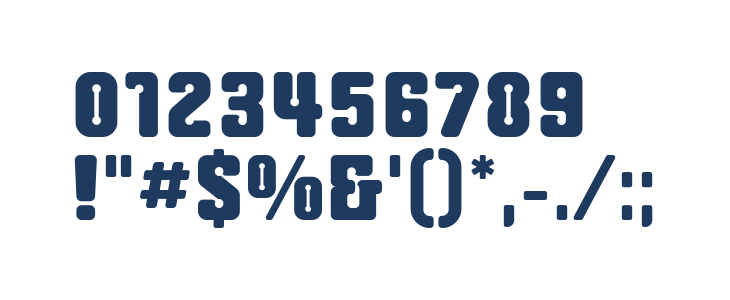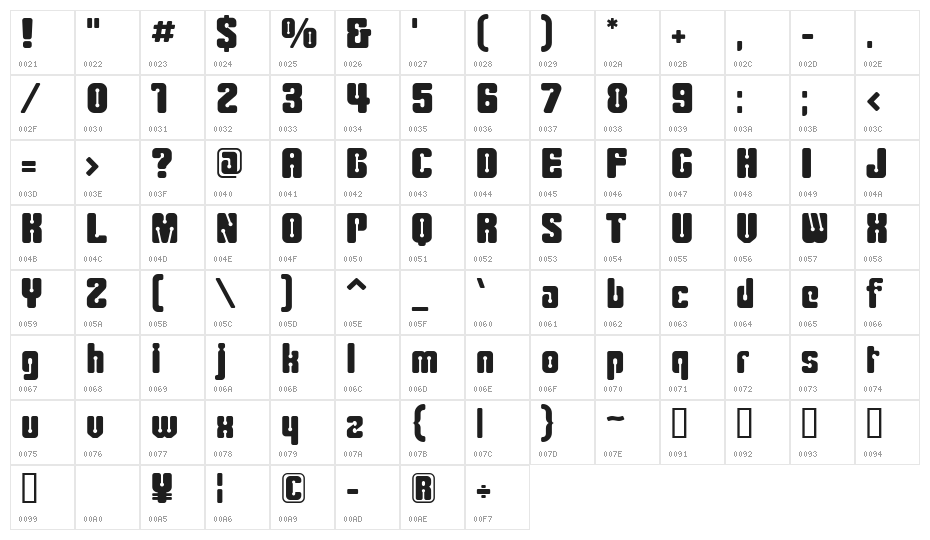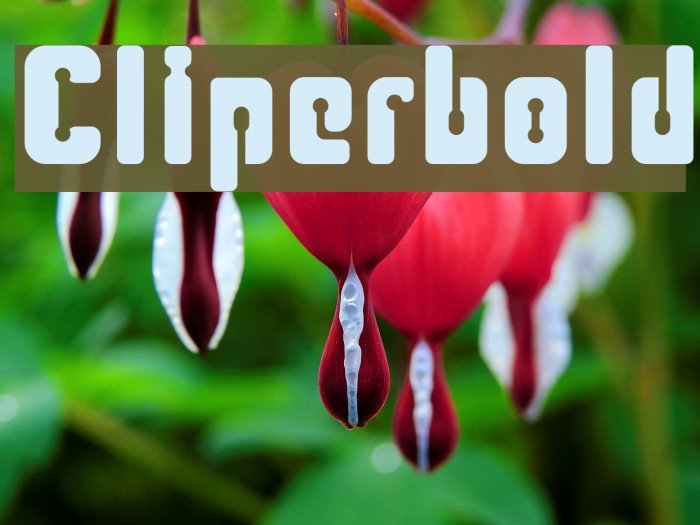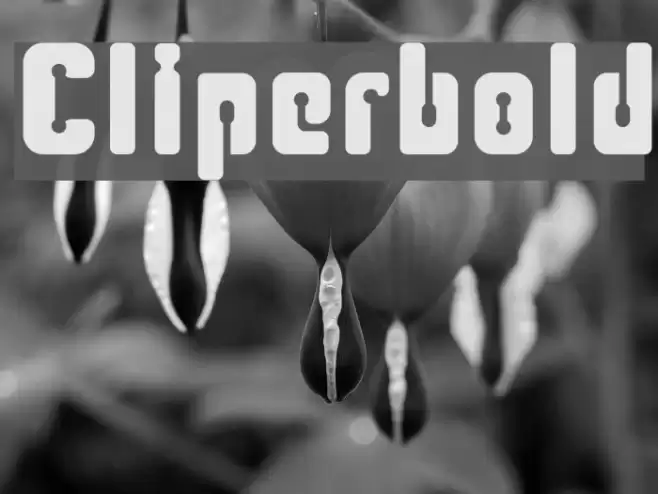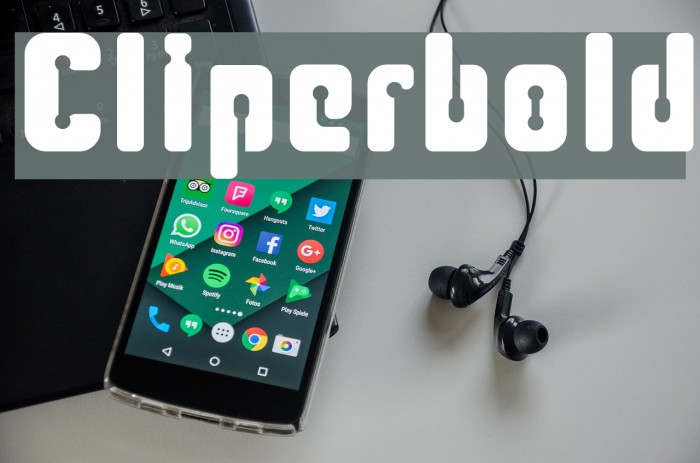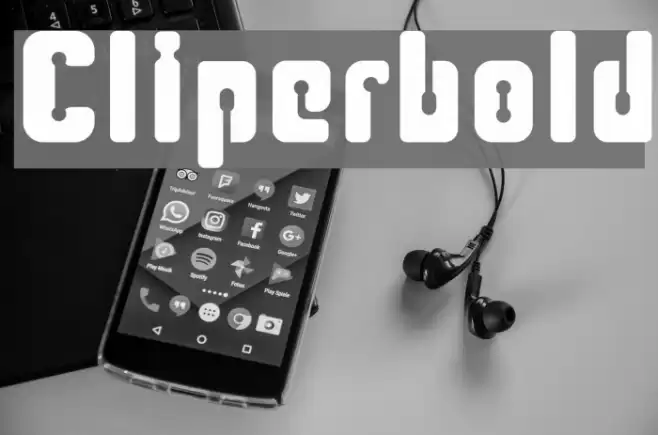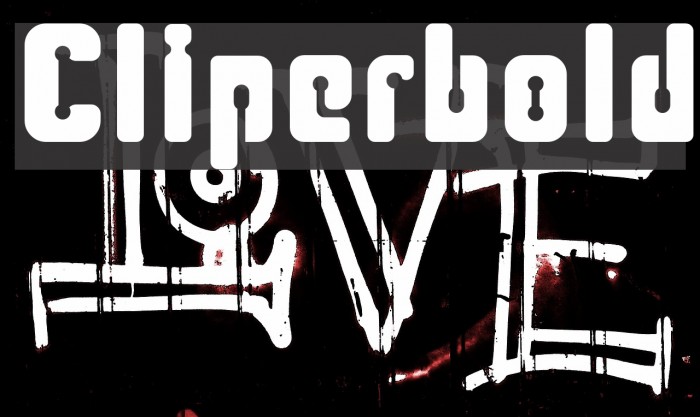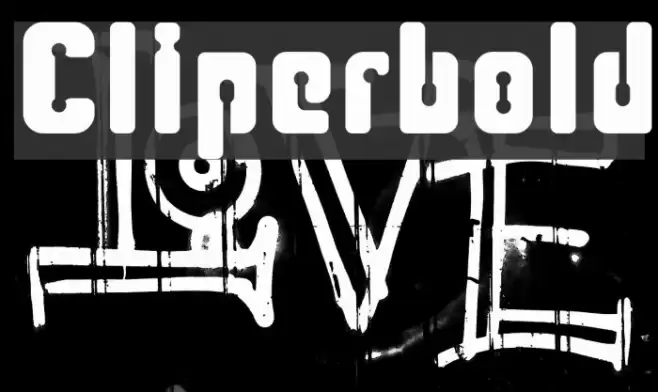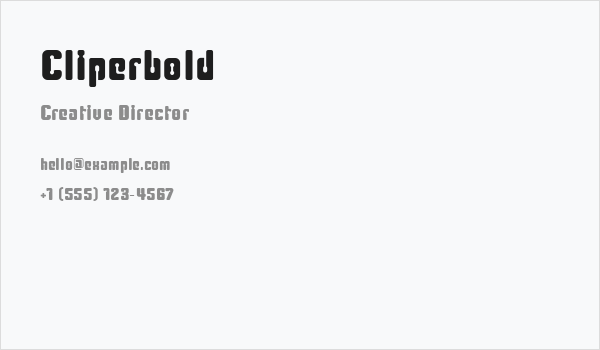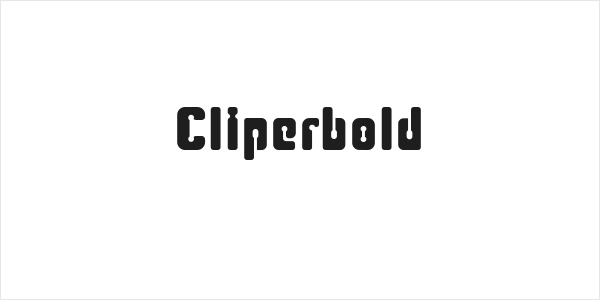
Cliperbold Font
Cliperbold Description
This font features a bold, geometric style with thick, uniform strokes that create a strong visual impact. The characters are rounded and have a blocky appearance, giving them a modern and industrial feel. The uppercase and lowercase letters maintain a consistent width, contributing to a cohesive look. The numbers and special characters follow the same design principles, ensuring uniformity across all glyphs. The font's boldness makes it highly legible, even at smaller sizes, while its unique style adds a distinctive touch to any design.